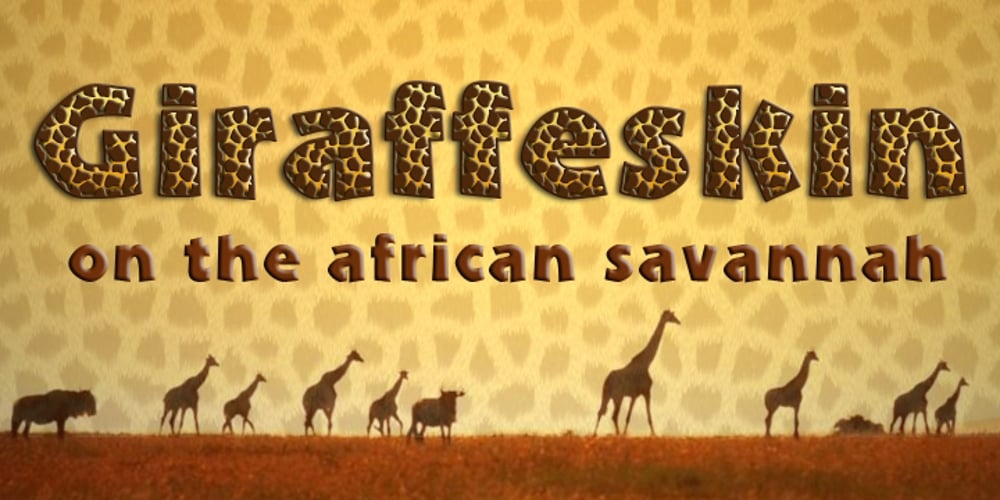
Giraffe Skin Font Family was designed by Anton Scholtz, Merle Scholtz and published by Scholtz Fonts. Giraffe Skin contains 1 styles and family package options. GiraffeSkin is an exciting, contemporary font. The popularity of the “animal skin” look in contmporary clothing and soft furnishing design make GiraffeSkin a must for designers on the cutting edge. It is best used for headings and where you intend to make a strong impact, with an African wildlife look. The font comes in two versions, one based on the popular Kassena font, the other based on Zim, one of Scholtz Fonts new designs.